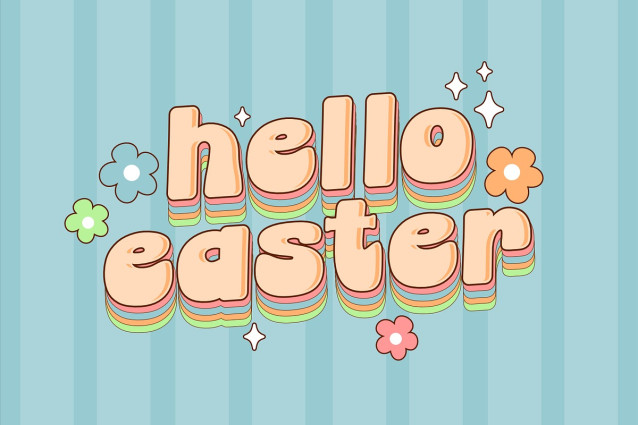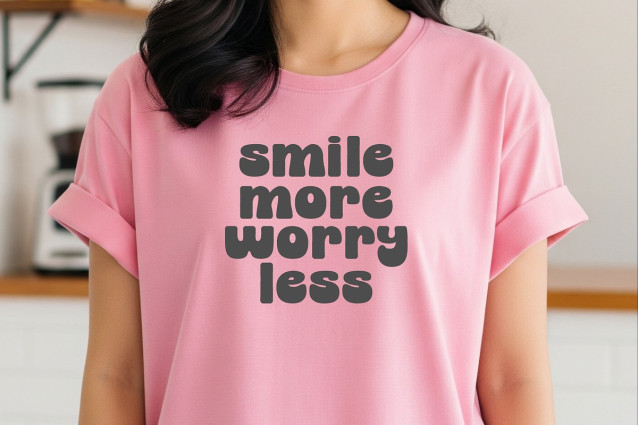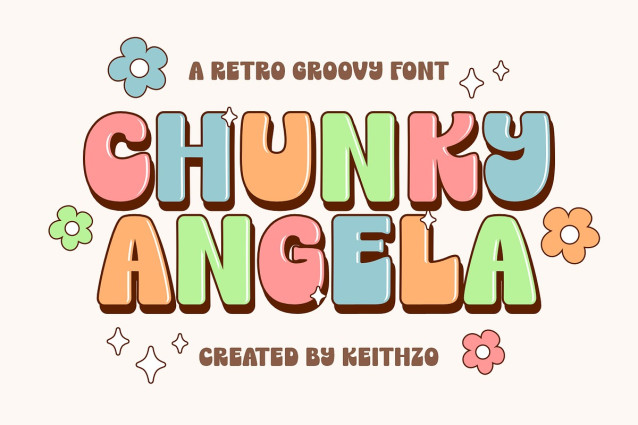
Chunky Angela Font is a vibrant and retro groovy fonts created by Keithzo to capture a fun, nostalgic 90s era vibe in every single letter. This bold display fonts features thick, bubble-like characters with a unique rounded style that makes your text pop with a cheerful and energetic personality. It is the perfect choice for designers looking to add a playful vintage touch to posters, branding identities, and modern creative projects that need to stand out instantly.
These versatile fonts are highly recommended for physical merchandise such as custom t-shirts, decorative stickers, and stylish tote bags that require a touch of magic and high visual impact. Chunky Angela also excels in seasonal designs like summer-themed graphics or Easter cards, as well as social media quotes and digital banners where readability and fun aesthetics are key. The font is designed to be user-friendly across various platforms, ensuring your designs always look professional and full of life.